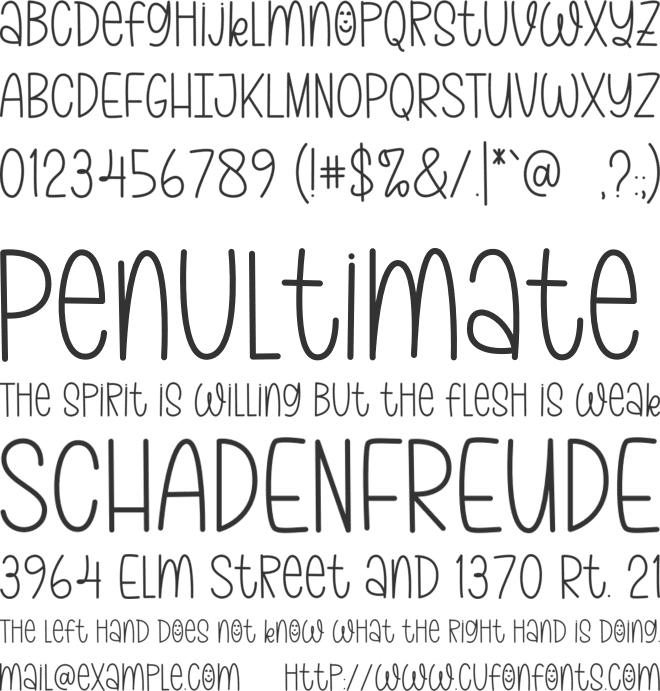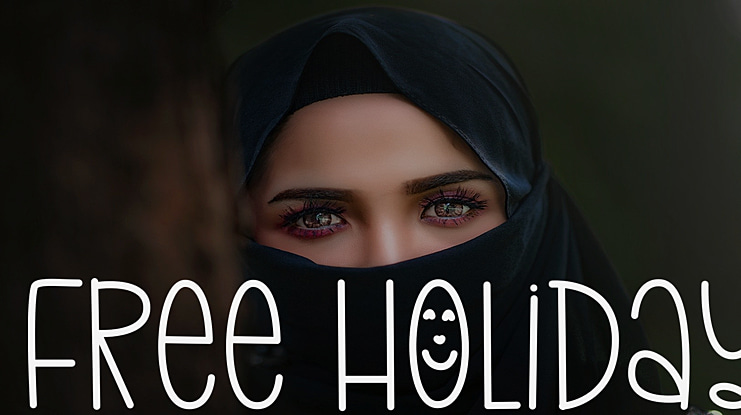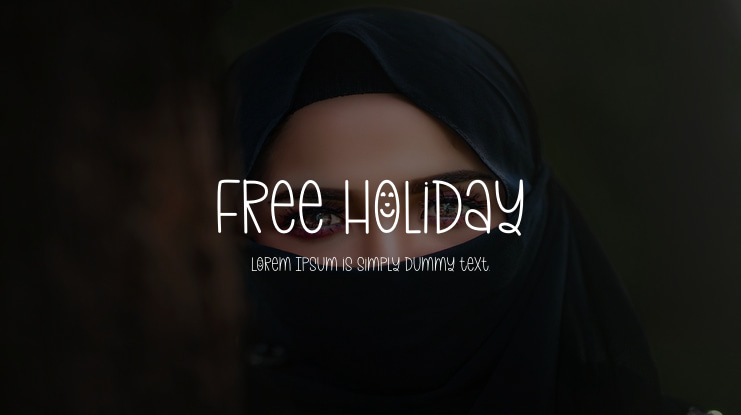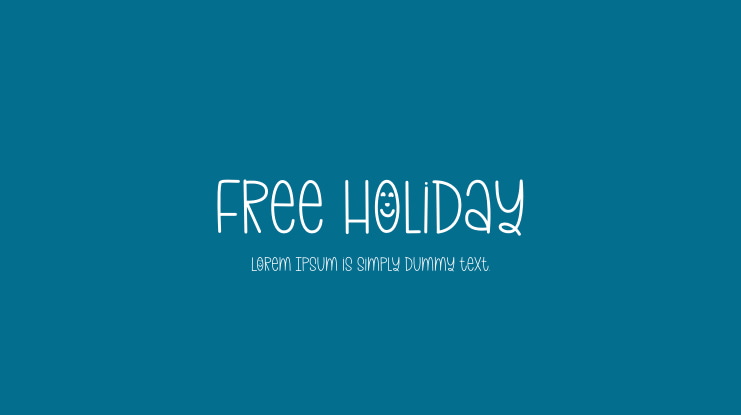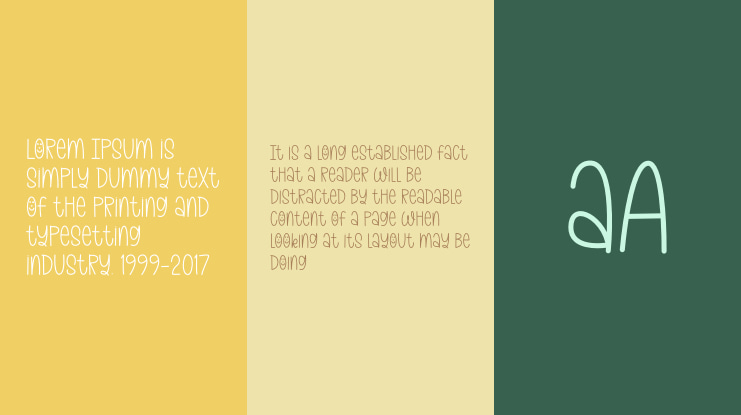
Free Holiday Font
Free Holiday is a cute, playful and thin lettered sans serif font. Add this font to your most creative ideas, and notice how it makes them stand out!